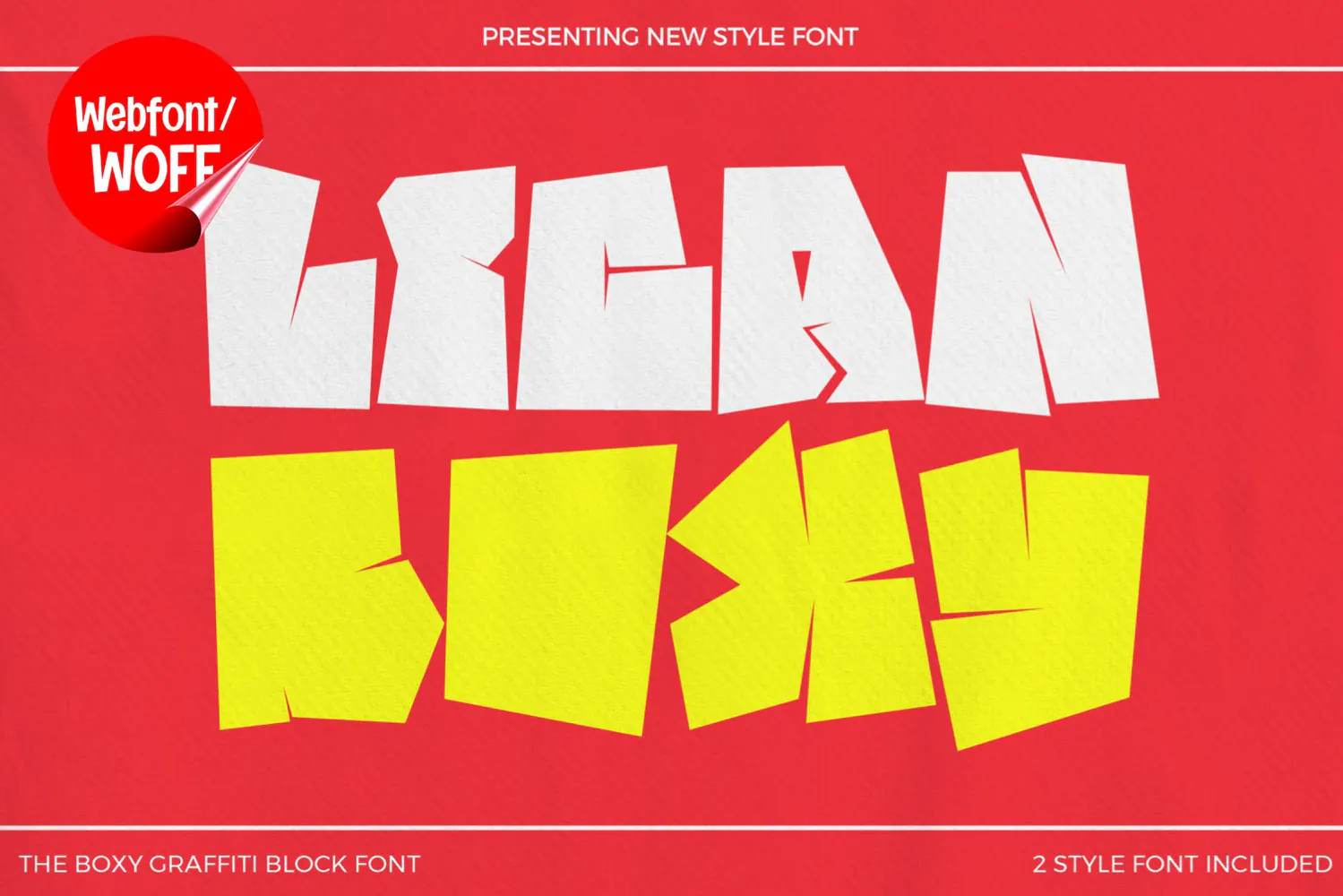
Lican Boxy Webfont Graffiti Block Display Font | Bold Urban
Bring a bold street-art aesthetic to your digital projects with Lican Boxy Webfont, a distinctive graffiti-inspired display typeface built around chunky, angular, and unconventional letterforms.
Inspired by urban graffiti, experimental lettering, streetwear culture, and geometric block shapes, Lican Boxy creates an energetic visual identity that immediately captures attention. Its irregular construction gives the typeface a raw and handmade appearance while maintaining a strong, solid silhouette for impactful digital headlines.
Lican Boxy is ideal for website headlines, landing pages, streetwear stores, music websites, gaming platforms, creative portfolios, digital posters, event websites, online campaigns, and urban brand identities.
The font includes 2 distinct styles, allowing designers to introduce variation and contrast into their web typography. Use the styles separately or combine them within a creative layout to build eye-catching titles and branded visual elements.
Its bold proportions make Lican Boxy particularly effective for large display text rather than long paragraphs. Use it for hero sections, campaign titles, promotional banners, product names, digital merchandise, and other prominent typography where a strong graffiti-inspired personality is needed.